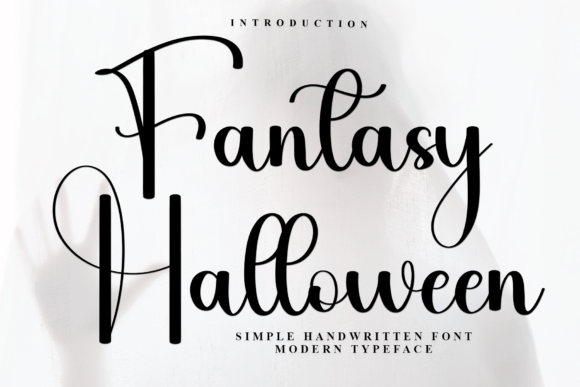
Fantasy Halloween Font: A Spooky and Playful Typeface for Your Festive Needs
As the spookiest time of the year approaches, designers and crafters are on the lookout for the perfect font to capture the essence of Halloween. Look no further than the Fantasy Halloween Font, a creative handwritten typeface that combines bold and thin lines to create a playful and eerie design. In this article, we’ll dive into the world of Fantasy Halloween Font, exploring its features, uses, and benefits, as well as providing tips and inspiration for incorporating it into your festive projects.
What is Fantasy Halloween Font?
Fantasy Halloween Font is a unique and creative handwritten font that is specifically designed to evoke the spooky spirit of Halloween. Its playful design combines bold and thin lines to create a sense of movement and energy, making it perfect for a variety of festive applications, from invitations and decorations to social media graphics and more.
Key Features of Fantasy Halloween Font
- Handwritten design: Fantasy Halloween Font has a personal and handmade feel, giving it a warm and inviting tone.
- Mix of bold and thin lines: The font’s bold and thin lines create a sense of contrast and visual interest, making it perfect for headlines and body text.
- Playful and spooky: The font’s design captures the essence of Halloween, with a playful and eerie tone that’s perfect for the spookiest time of the year.
- Versatile: Fantasy Halloween Font can be used for a variety of applications, from invitations and decorations to social media graphics and more.
Uses for Fantasy Halloween Font
Fantasy Halloween Font is a versatile typeface that can be used for a wide range of festive applications, including:
- Halloween invitations: Create spooky and inviting invitations for your Halloween party or event.
- Decorations: Use Fantasy Halloween Font to create festive decorations, such as banners, signs, and garlands.
- Social media graphics: Create spooky and engaging social media graphics, such as Facebook posts and Instagram stories.
- Halloween crafts: Use Fantasy Halloween Font to create handmade crafts, such as cards, gift tags, and DIY decorations.
Benefits of Using Fantasy Halloween Font
There are many benefits to using Fantasy Halloween Font for your festive projects, including:
- Unique and creative design: Fantasy Halloween Font has a unique and creative design that will set your projects apart from the rest.
- Easy to read: The font’s clear and legible design makes it easy to read, even in small sizes.
- Customizable: Fantasy Halloween Font can be customized to fit your needs, with adjustable font sizes, colors, and styles.
Tips for Using Fantasy Halloween Font
Here are some tips for getting the most out of Fantasy Halloween Font:
- Use it sparingly: Fantasy Halloween Font is a bold and eye-catching font, so use it sparingly to avoid overwhelming your design.
- Pair it with other fonts: Pair Fantasy Halloween Font with other fonts to create a unique and interesting design.
- Experiment with colors: Try out different colors and combinations to find the perfect look for your project.
Inspiration for Your Fantasy Halloween Font Projects
Need some inspiration for your Fantasy Halloween Font projects? Here are a few ideas to get you started:
- Create a spooky Halloween invitation: Use Fantasy Halloween Font to create a spooky and inviting invitation for your Halloween party or event.
- Make a festive Halloween banner: Use Fantasy Halloween Font to create a festive banner or sign for your Halloween decorations.
- Design a creepy Halloween social media graphic: Use Fantasy Halloween Font to create a spooky and engaging social media graphic for Halloween.
Fantasy Halloween Font is a unique and creative handwritten font that is perfect for capturing the spooky spirit of Halloween. With its playful design, bold and thin lines, and versatile uses, it’s a great addition to any designer’s toolkit. Whether you’re creating invitations, decorations, or social media graphics, Fantasy Halloween Font is sure to add a touch of Halloween magic to your projects.